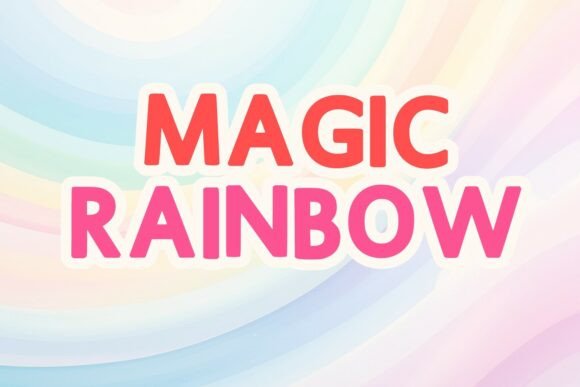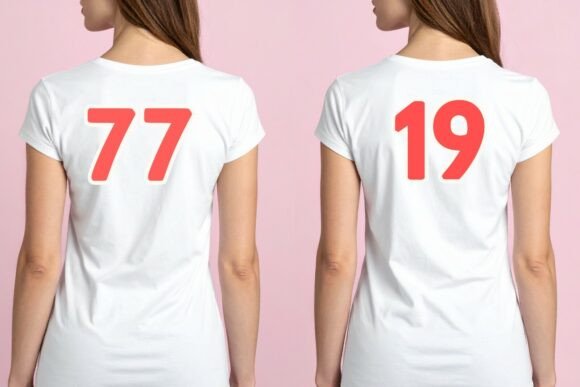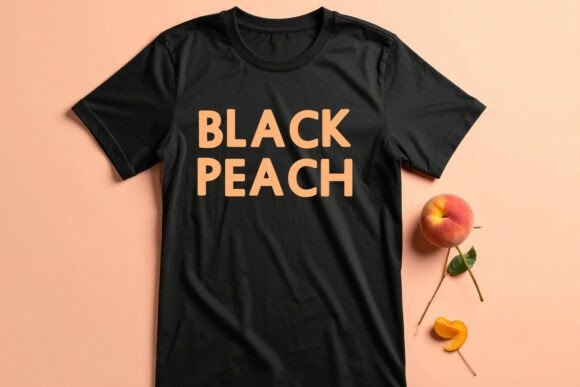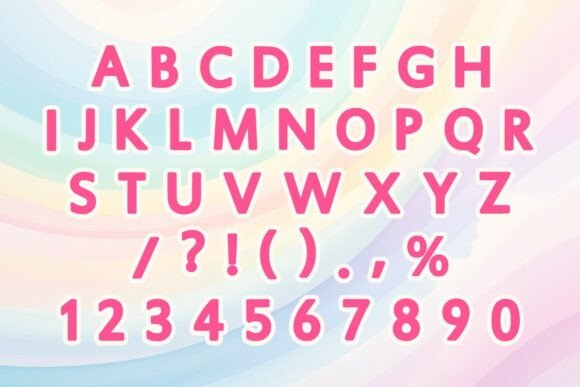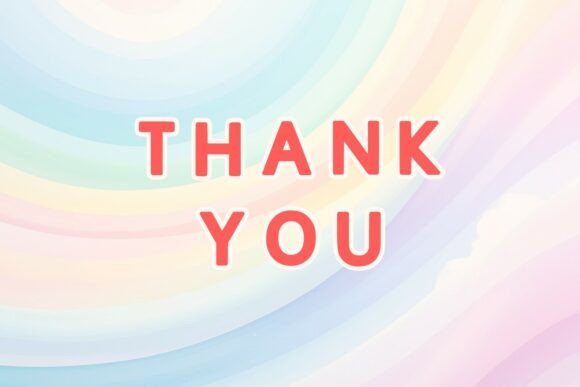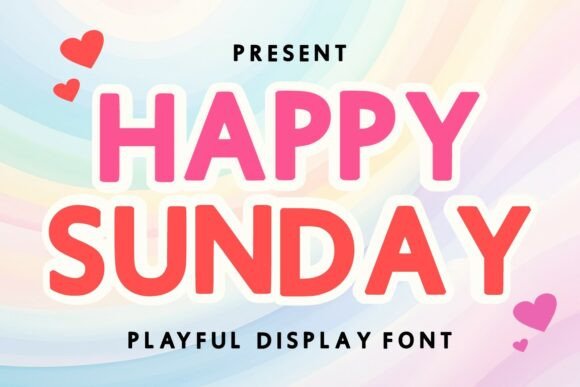
Introducing Happy Sunday Font: The Ultimate Choice for Fun and Playful Designs
Are you tired of using the same old fonts for your designs? Look no further! Happy Sunday Font is here to bring a burst of joy and positivity to your creative projects. This adorable display font is perfect for designers and crafters who want to add a touch of whimsy and playfulness to their work.
What Makes Happy Sunday Font So Special?
Happy Sunday Font is a cute and playful display font that boasts bold rounded shapes and a cheerful personality. Its friendly and bubbly style makes it an ideal choice for a wide range of design projects, from kids’ designs and greeting cards to posters, social media graphics, stickers, t-shirt designs, and branding. With Happy Sunday, you can add a joyful and positive vibe to any project, making it perfect for both personal and commercial use.
Perfect for Kids’ Designs and More
Happy Sunday Font is particularly well-suited for kids’ designs, such as children’s books, educational materials, and activity sheets. Its playful and fun style will capture kids’ attention and make your designs stand out. Additionally, this font is great for:
- Greeting cards: Add a personal touch to your greeting cards with Happy Sunday’s cheerful and uplifting style.
- Posters: Create eye-catching posters for events, promotions, or awareness campaigns with this bold and playful font.
- Social media graphics: Elevate your social media presence with Happy Sunday’s fun and engaging style.
- Stickers: Design adorable stickers for kids or use them as promotional materials for your business.
- T-shirt designs: Create fun and quirky t-shirt designs that will make you stand out.
- Branding: Use Happy Sunday Font to add a playful touch to your brand’s identity.
Why Choose Happy Sunday Font?
There are many reasons why Happy Sunday Font stands out from the crowd:
- Unique and playful style: Happy Sunday Font has a distinctive and cheerful personality that will set your designs apart.
- Versatile: This font is suitable for a wide range of design projects, from kids’ designs to branding and advertising.
- Easy to read: Despite its playful style, Happy Sunday Font is easy to read, making it perfect for body text and headings.
Tips for Using Happy Sunday Font
To get the most out of Happy Sunday Font, here are some tips:
- Pair with complementary fonts: Combine Happy Sunday Font with other fonts to create a unique and visually appealing design.
- Experiment with colors: Try out different color schemes to match your brand’s identity or to create a specific mood.
- Use it consistently: Use Happy Sunday Font consistently across your designs to create a cohesive brand identity.
Happy Sunday Font is a versatile and playful display font that is perfect for designers and crafters who want to add a touch of fun and whimsy to their designs. With its bold rounded shapes and cheerful personality, this font is ideal for a wide range of design projects. Whether you’re working on kids’ designs, greeting cards, posters, or branding, Happy Sunday Font is sure to bring a joyful and positive vibe to your work. So why wait? Give Happy Sunday Font a try today and take your designs to the next level!